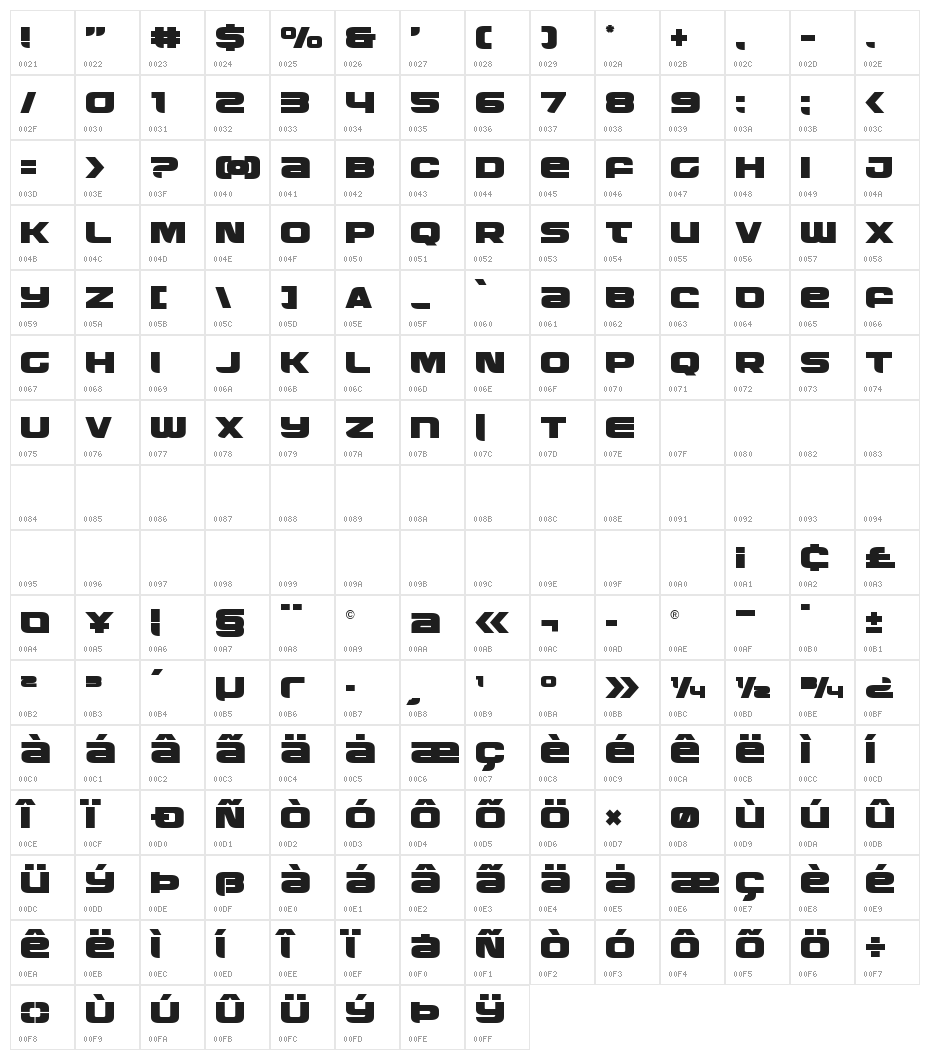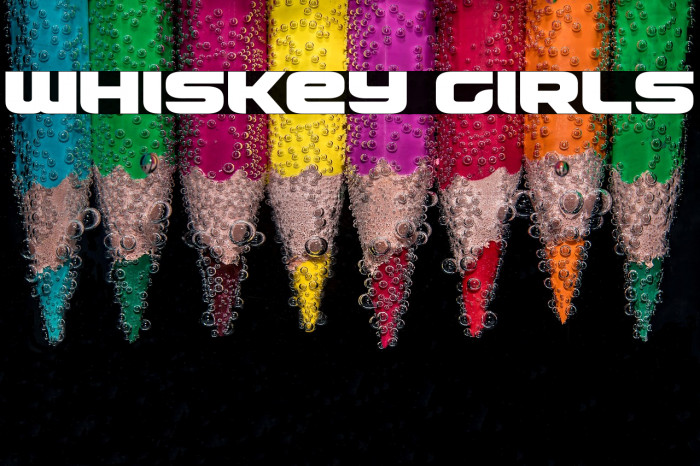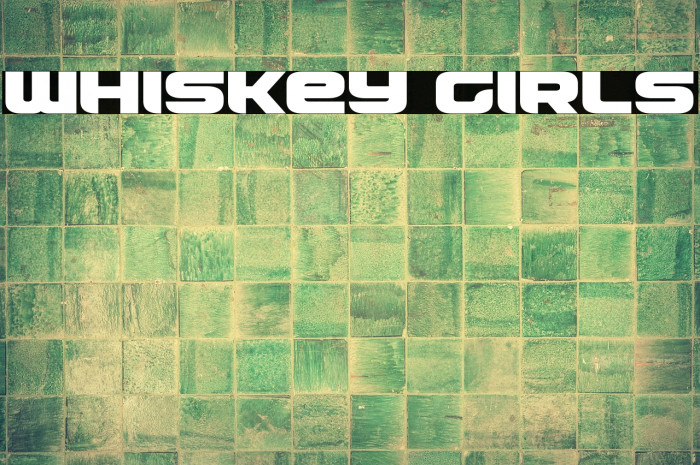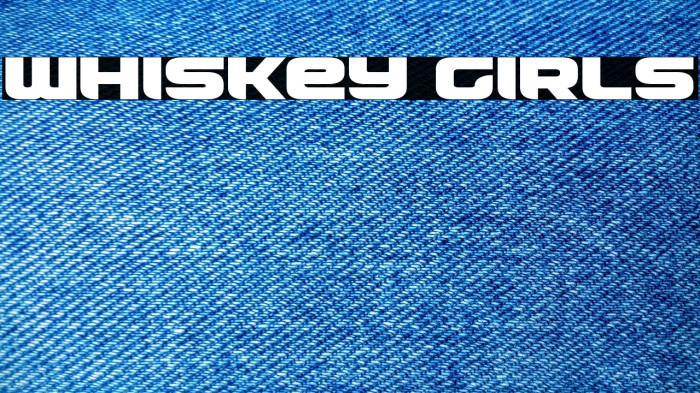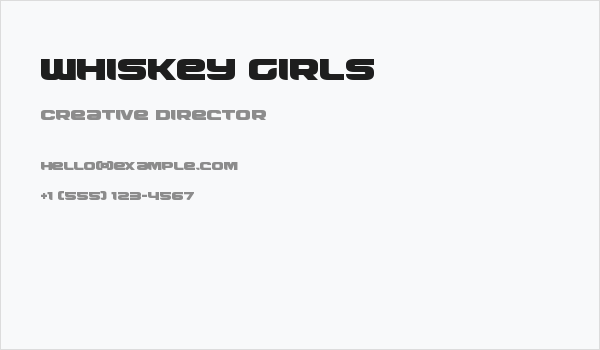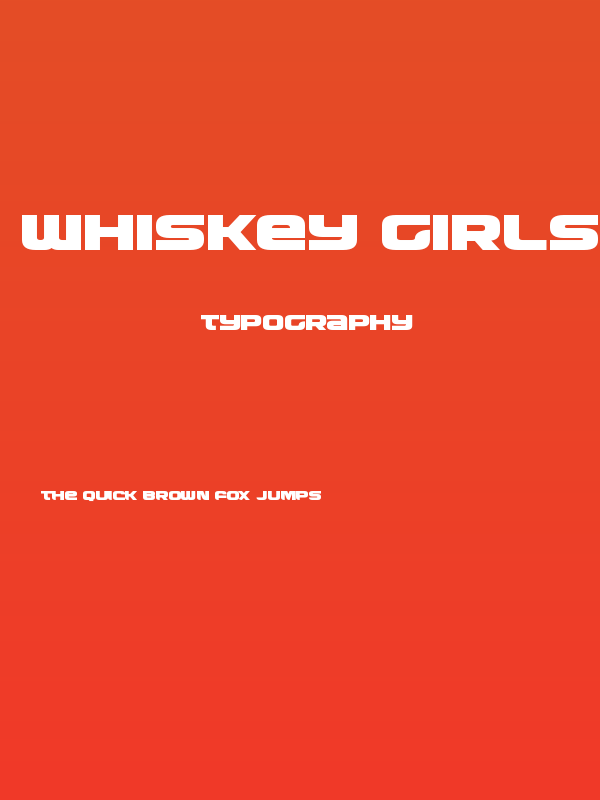
Whiskey Girls Font
Whiskey Girls Description
This font features a bold and modern design with a strong geometric structure. The characters are wide and have a uniform thickness, giving them a robust and impactful appearance. The uppercase and lowercase letters maintain a consistent style, with rounded edges and a slight slant that adds a dynamic feel. The numerals and special characters follow the same design principles, ensuring a cohesive look across all elements. This font is well-suited for projects that require a bold statement and a contemporary aesthetic.